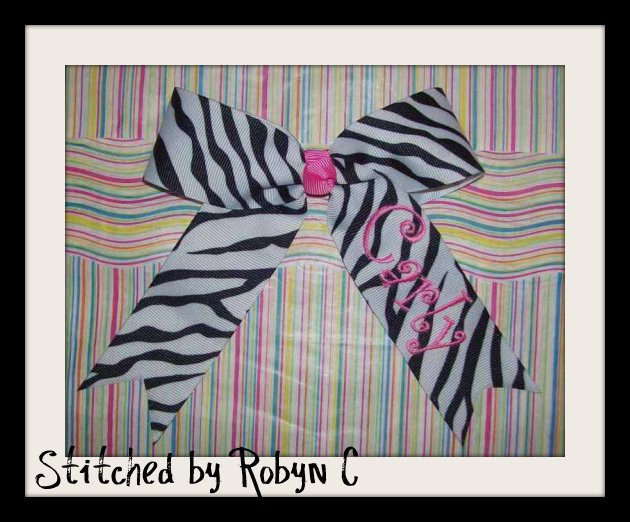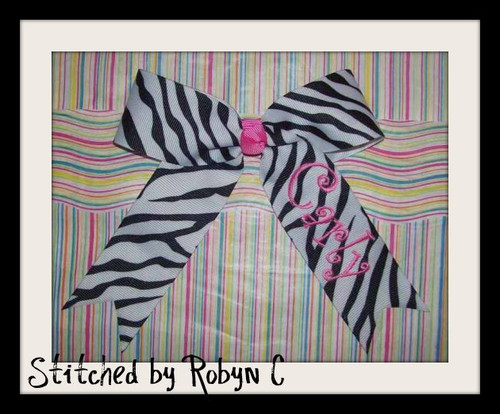
No 147 CurlyQue Font Machine Embroidery Designs 1 inch high
This set contains 66 designs:
26 Uppercase Letters – between 1" and 1.1" high
26 Lowercase Letters – between .6" and 1.1" high
14 Numbers & Symbols – between .1" and 1.1" high
Perfect for ribbons & bows!
Designed to combine and spell names